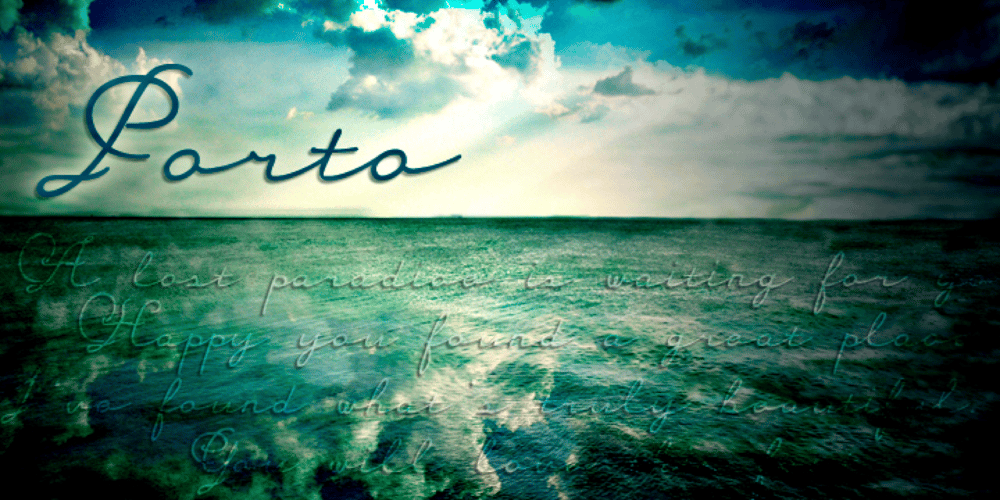
Porto Font Family was designed by Natsuko Hayashida and published by Okaycat. Porto contains 1 styles and family package options. A very cute cursive font! Porto is a beautiful script ~ its unique linework creates a distinctive look. Porto is extended, containing West European diacritics & ligatures, making it suitable for multilingual environments & publications.